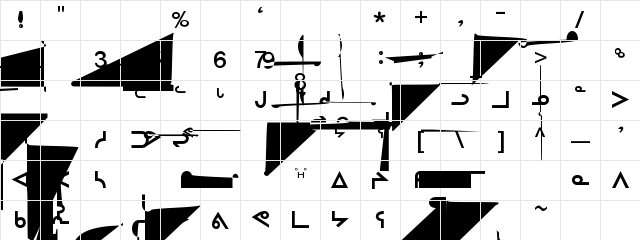
Inuktitut-Sri Regular
Design Context for Inuktitut-Sri Typeface
Inuktitut-Sri takes a measured approach to typography — its balanced proportions and neutral character make it a reliable workhorse for both digital and print work.